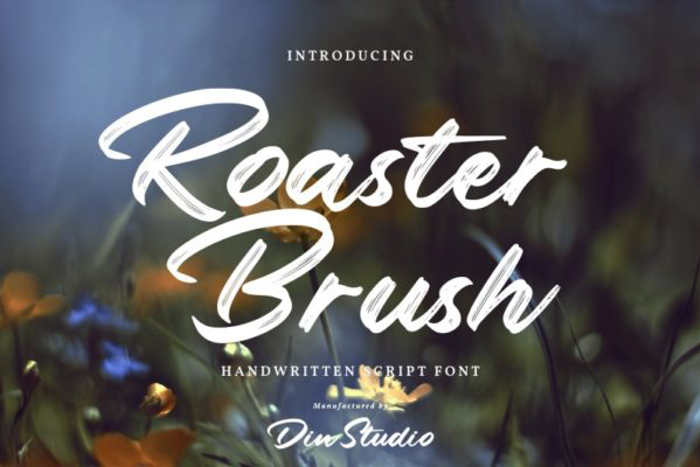
Roaster Brush Font
Roaster Brush – an Elegant Handwritten font. The combination of handwritten and brush fonts make your design projects more attractive since it is made for any professional project brandings, for instance logos, brandings and quotes. Every letter has a unique and beautiful touch.